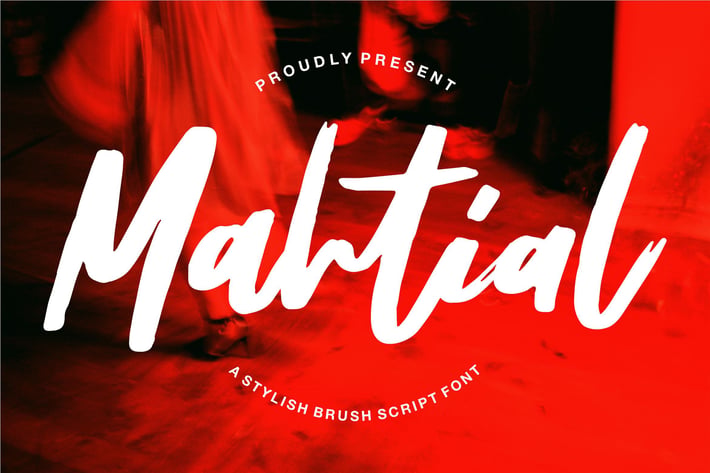
Mahtial | A Stylish Brush Script Font
Mahtial | A Stylish Brush Script Font with a calligraphy style, So beautiful on invitation like greeting cards, branding materials, business cards, quotes, posters, and more!